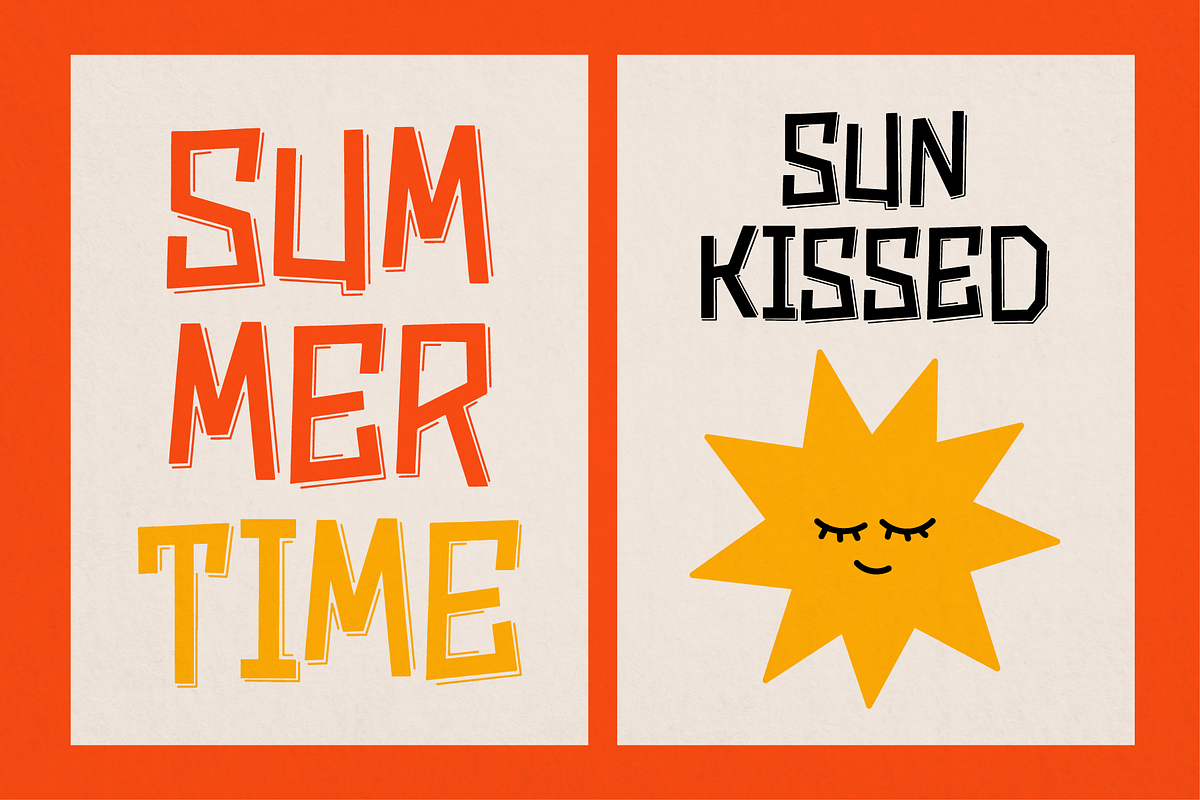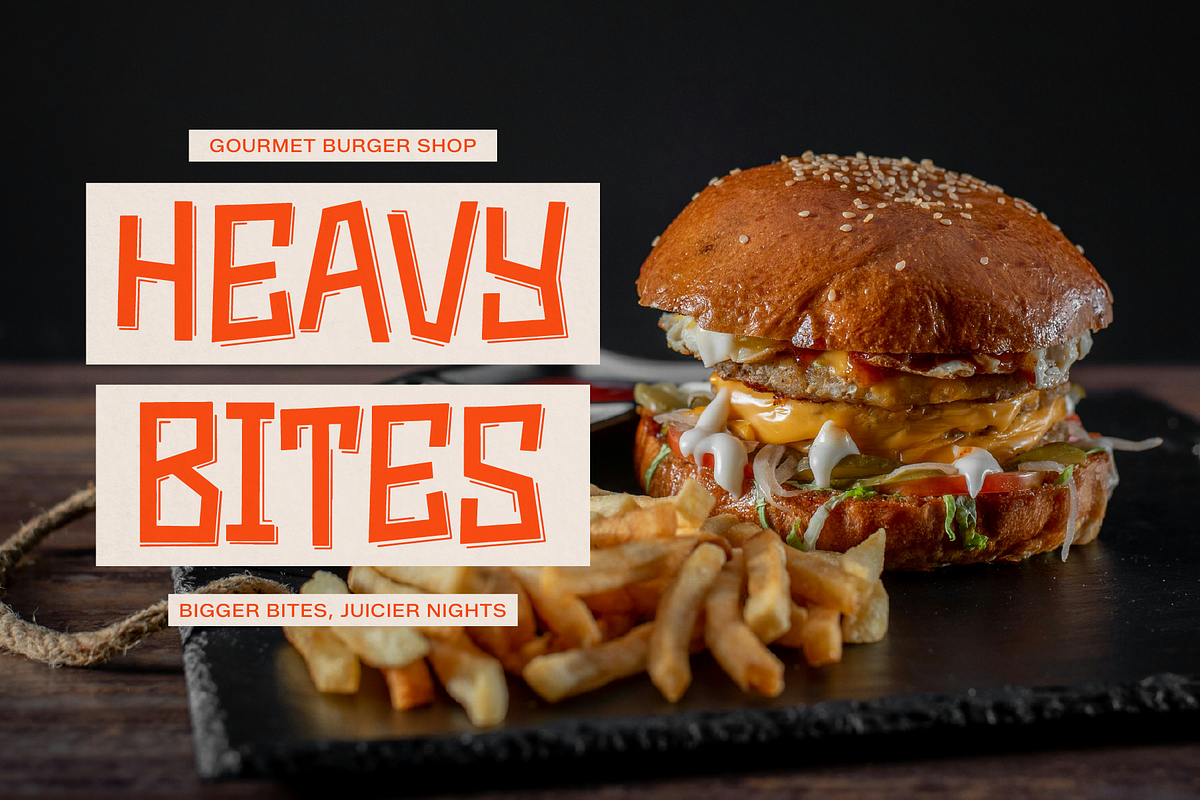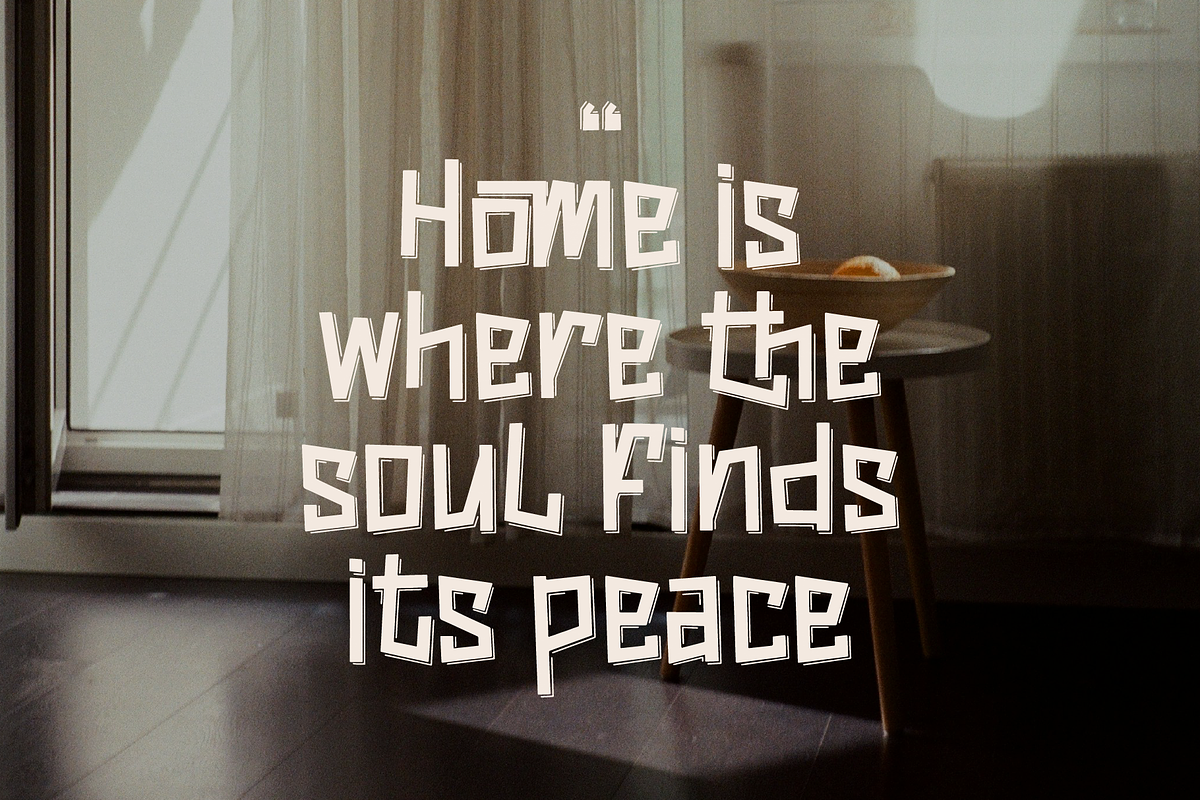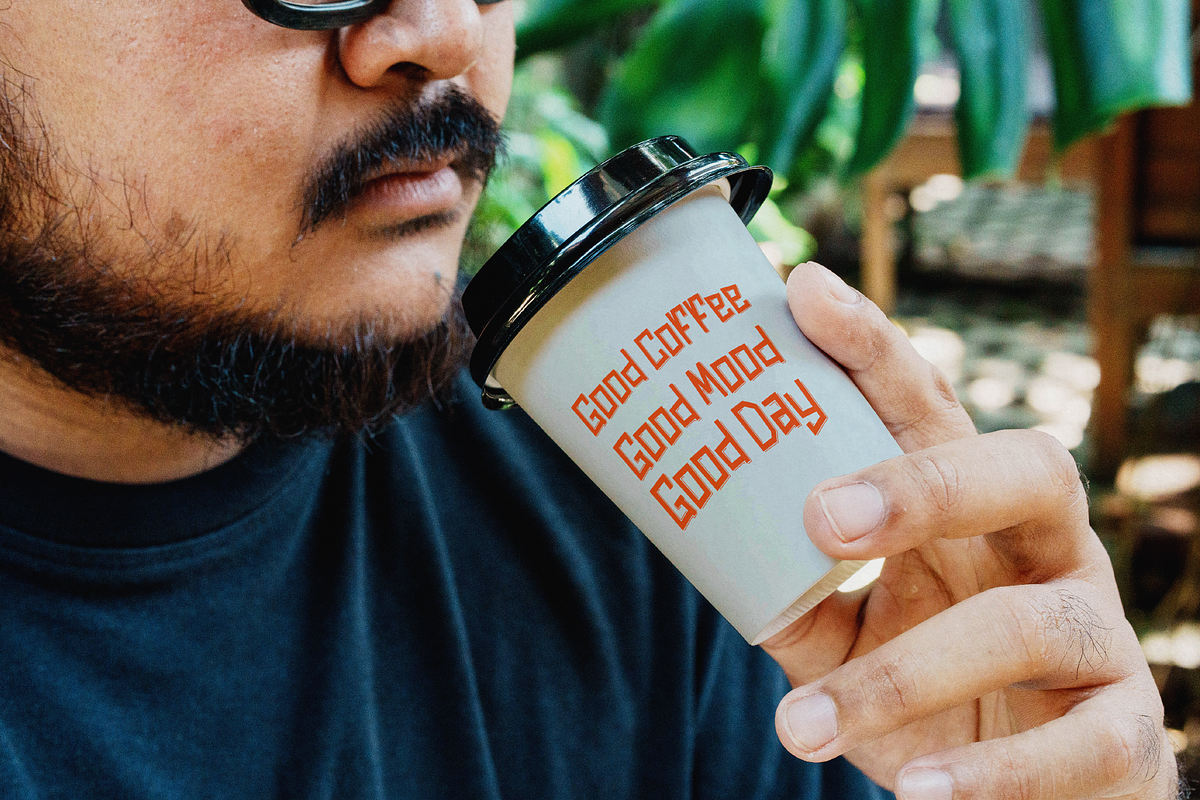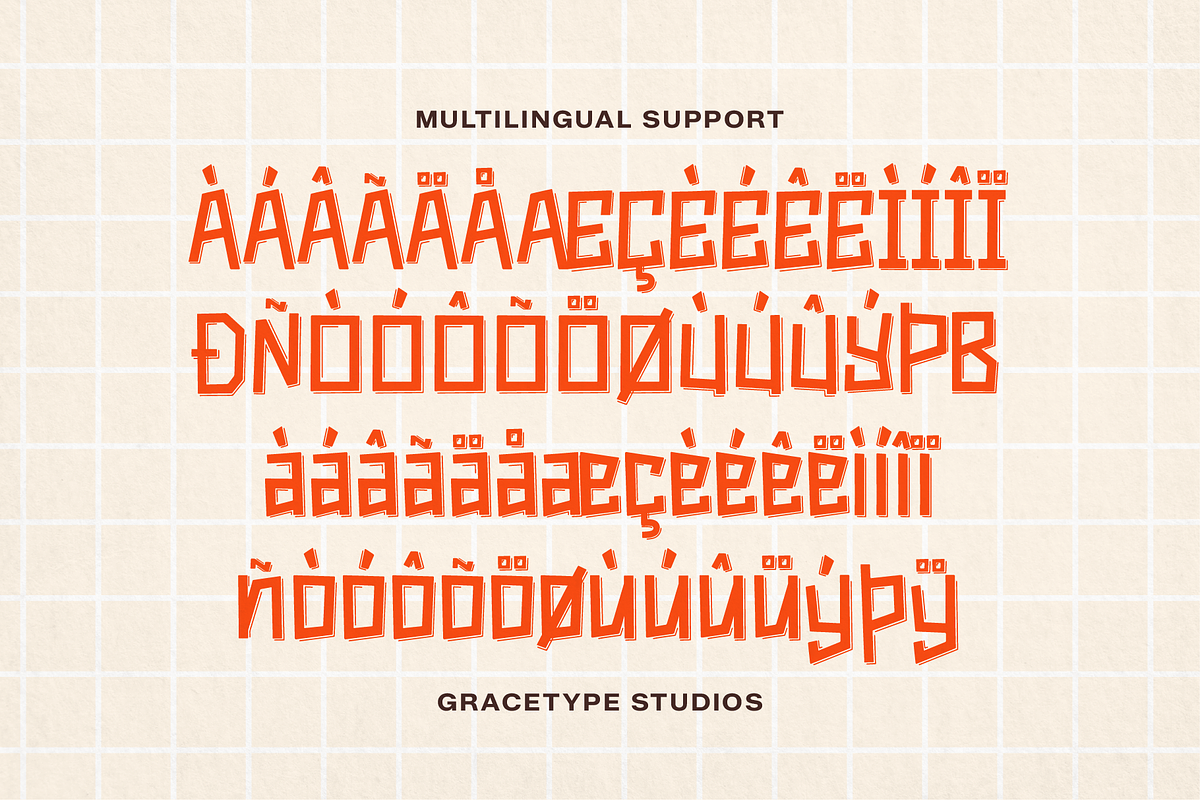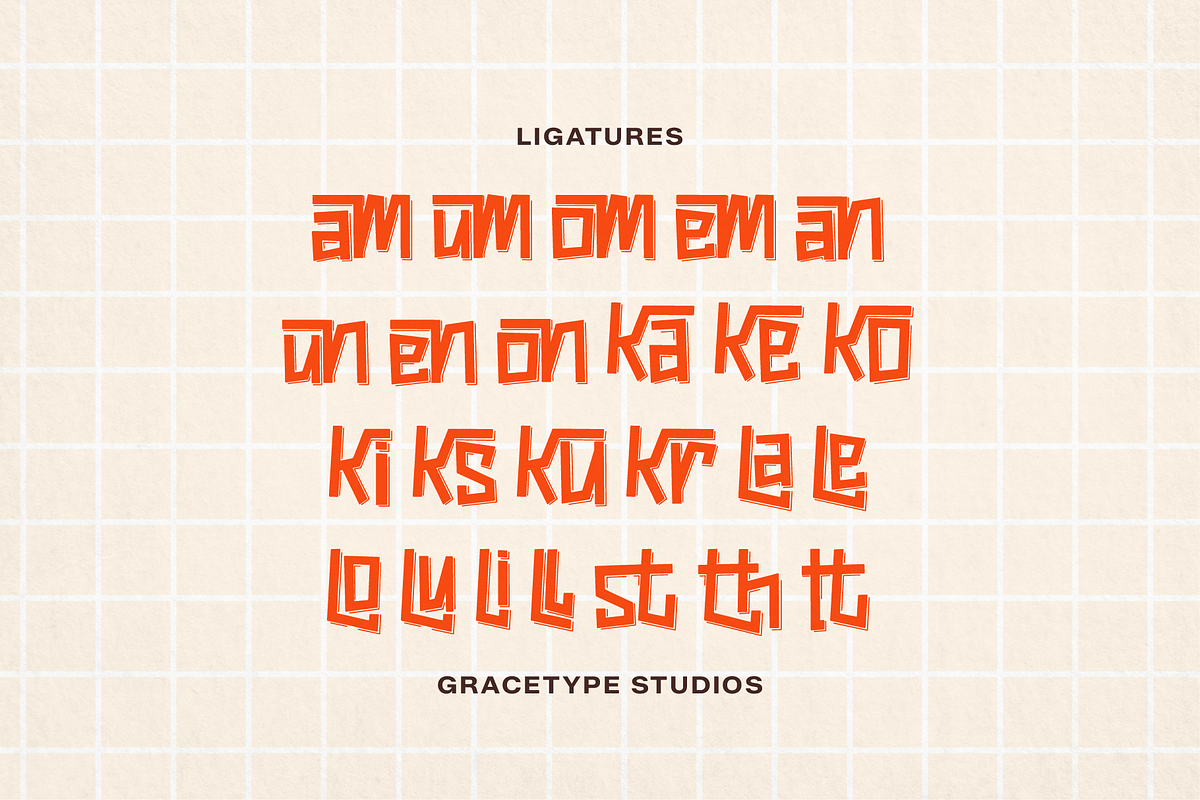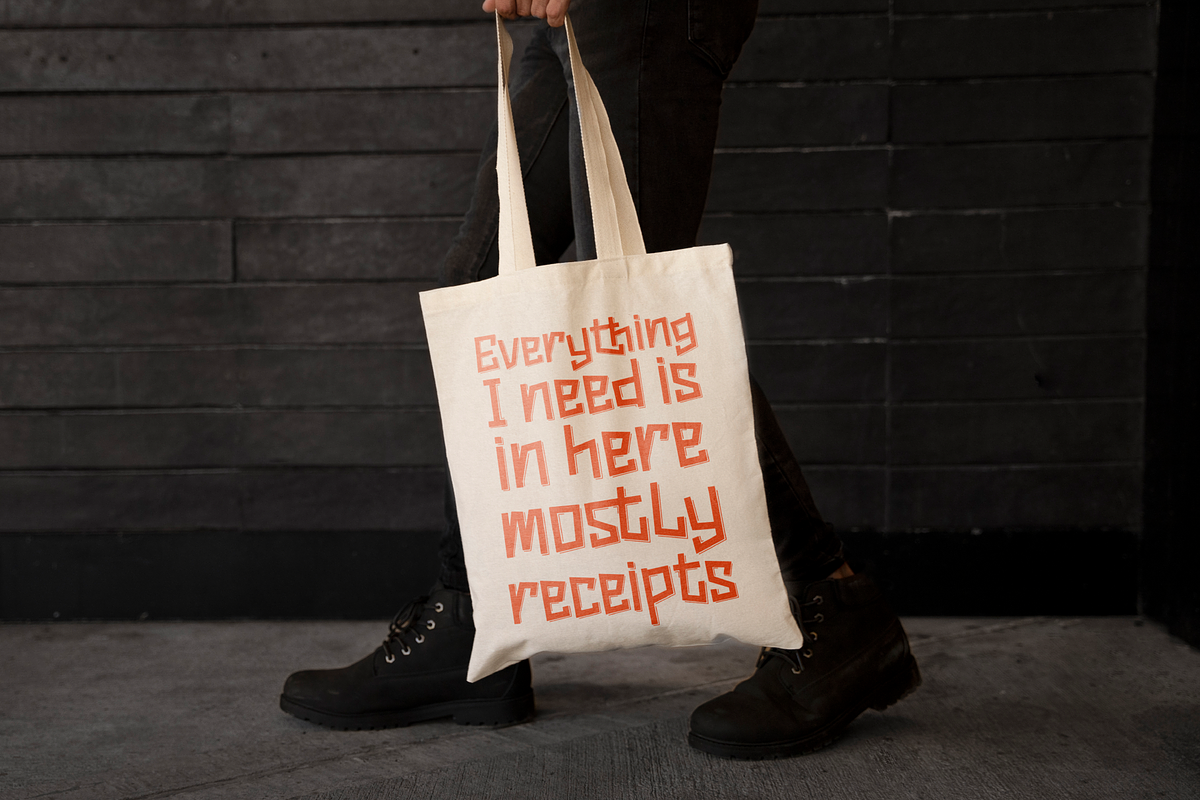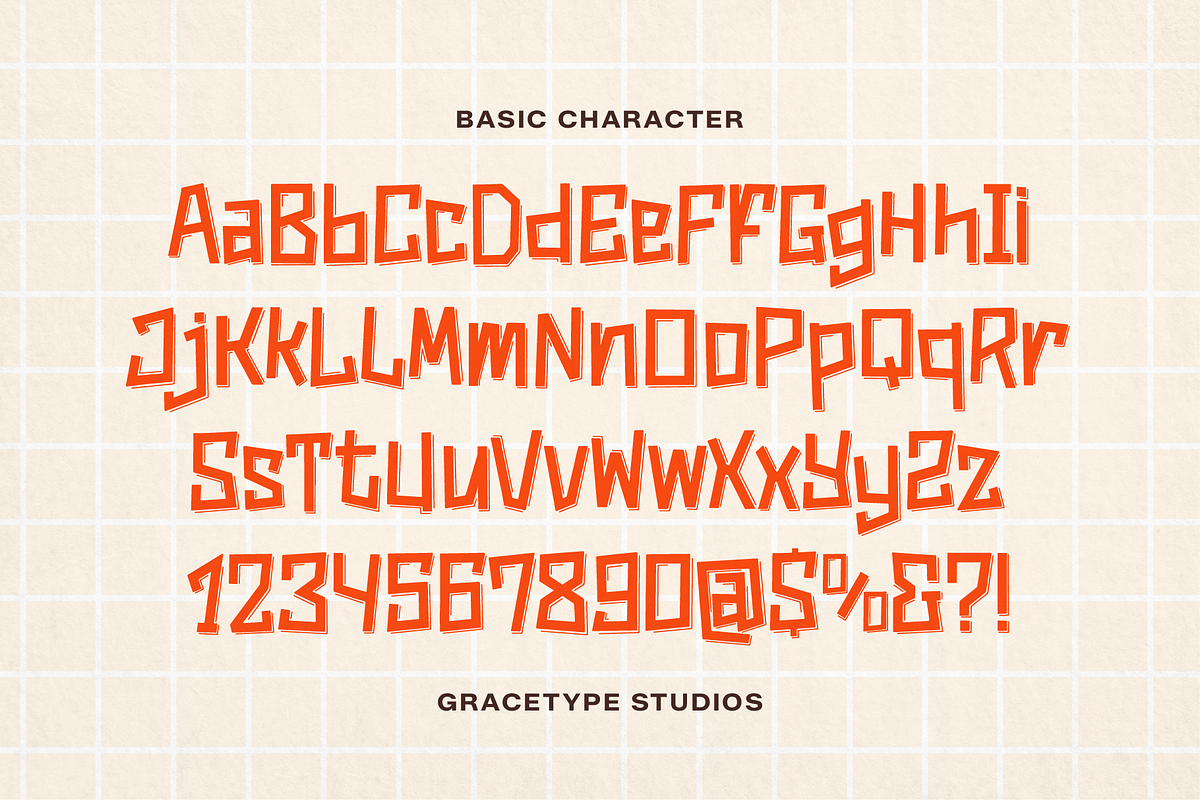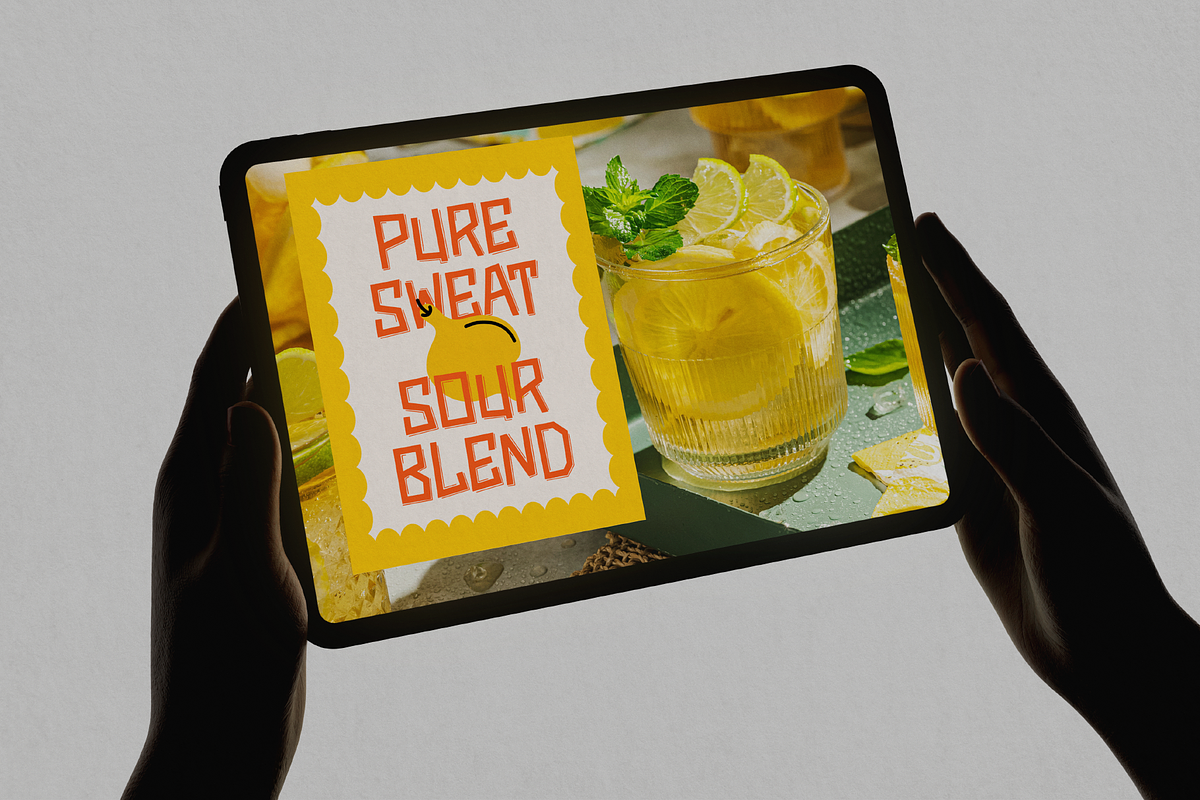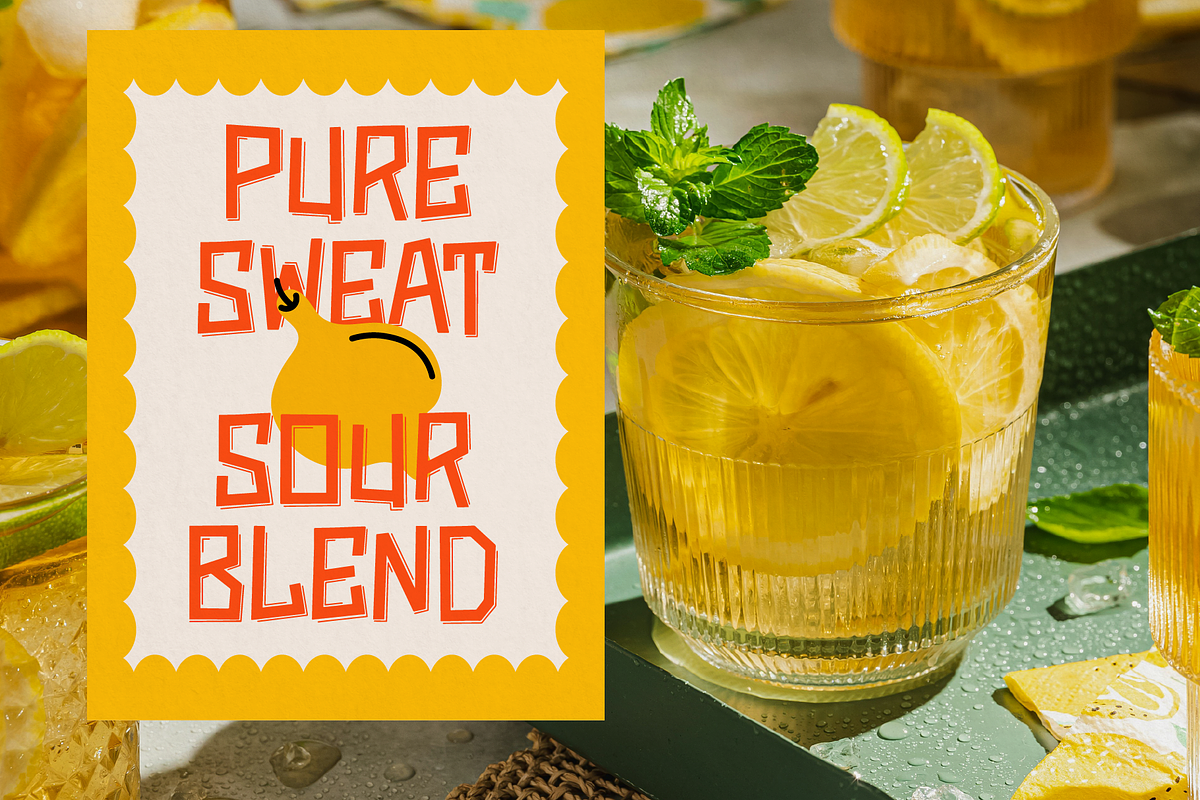
Rumble Block | Hand Drawn Display
**Rumble Block | Hand Drawn Display Font, from Gracetypestudio, suitable for any projects such as: logos, branding projects, homeware designs, product packaging, mugs, quotes, posters, shopping bags, t-shirts, book covers, name card, invitation cards, greeting cards, label, photography, watermark, special events, and all your other lovely projects that need a Hand Drawn **taste.
Standard glyphs
Alternate and Ligature
Fonts include multilingual support